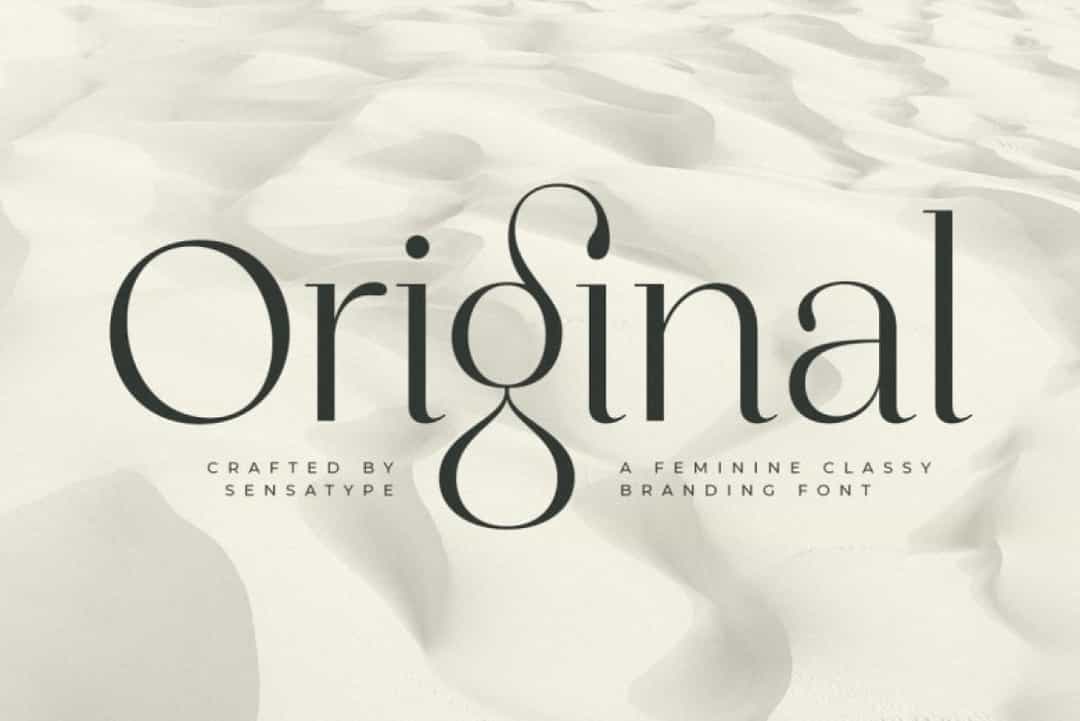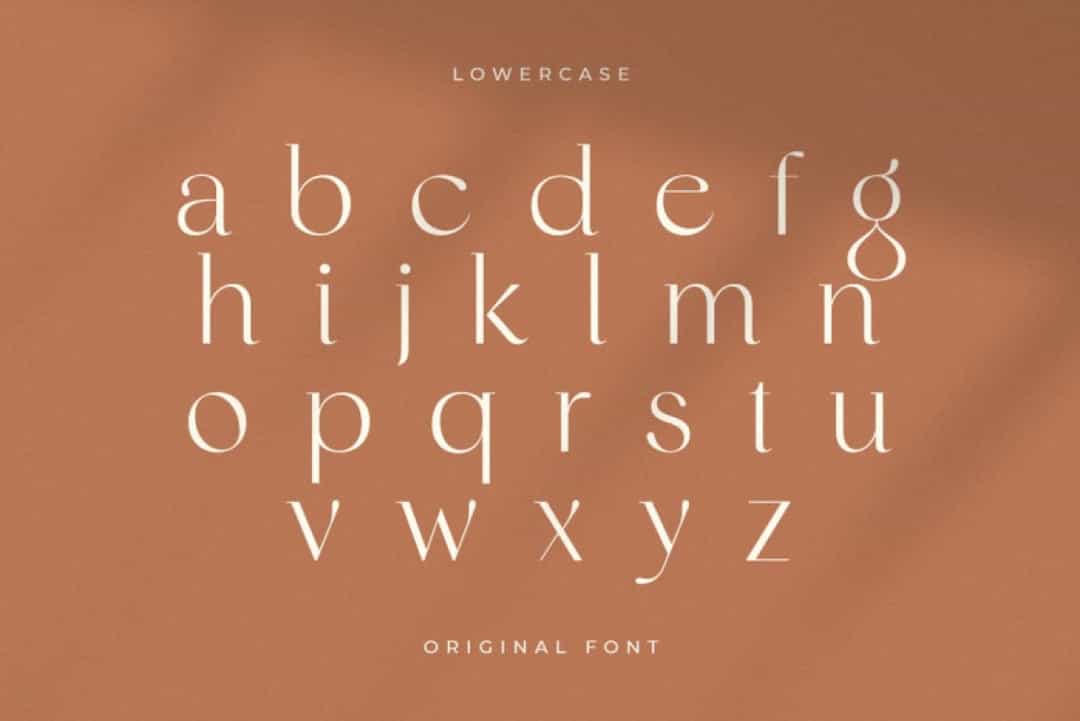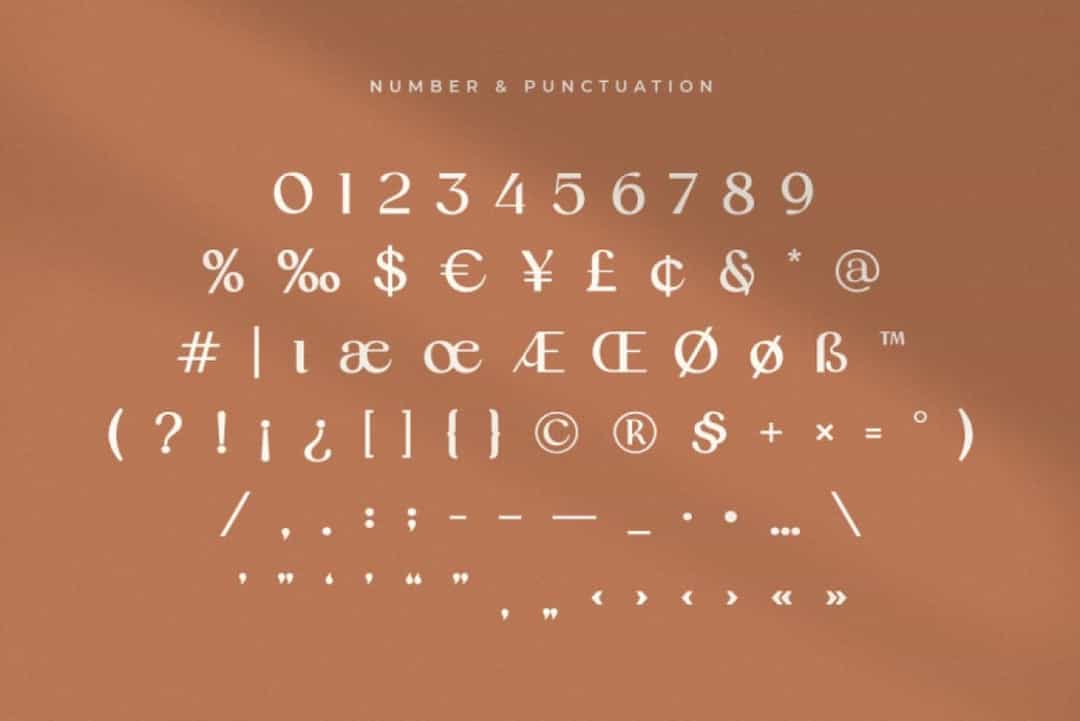
A font was developed specifically to meet branding requirements, with an exclusive ligature for characters that add value to your brand. We take great pleasure in being able to assist designers or owners of products seeking solutions to make their style more contemporary and trendy.